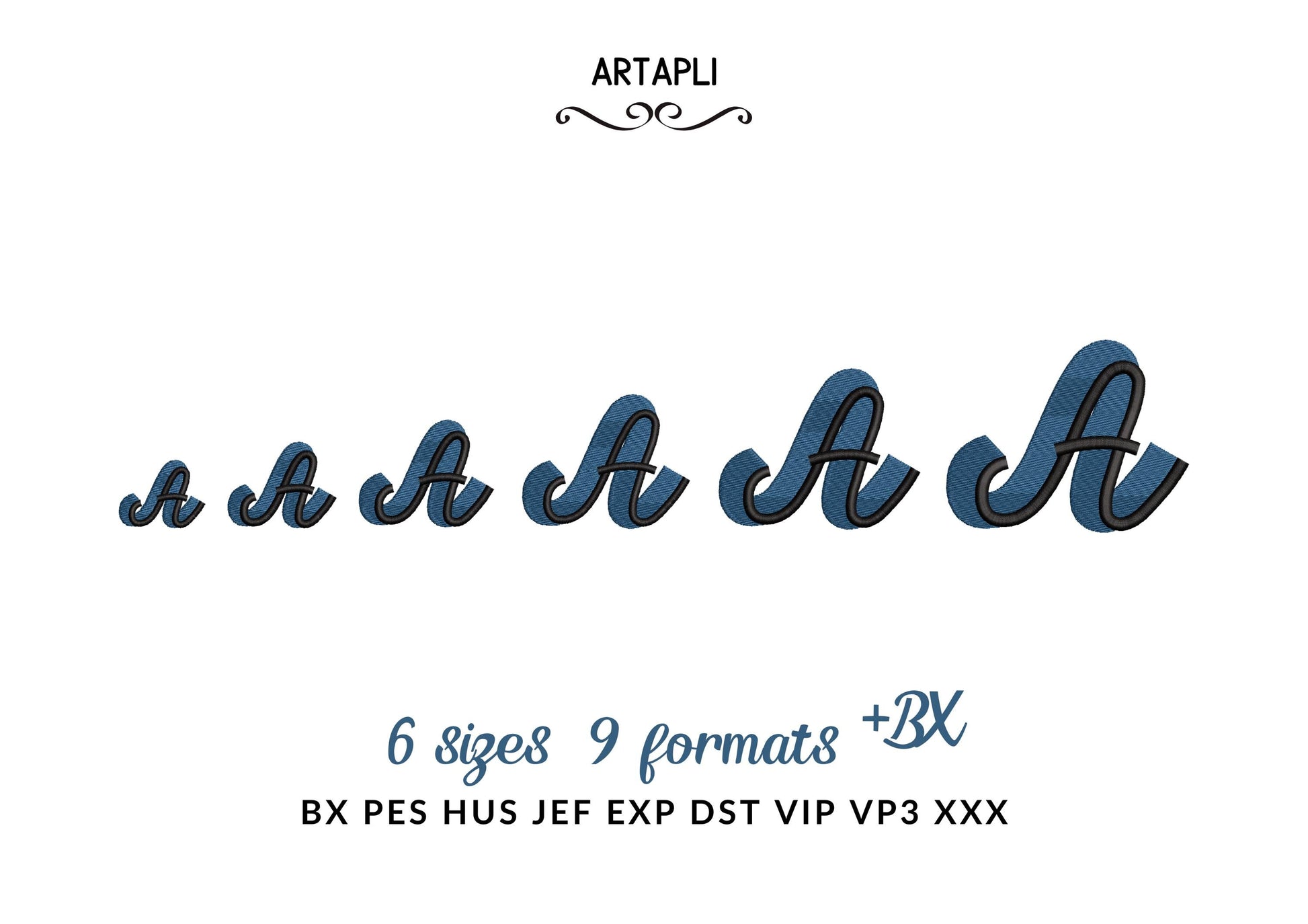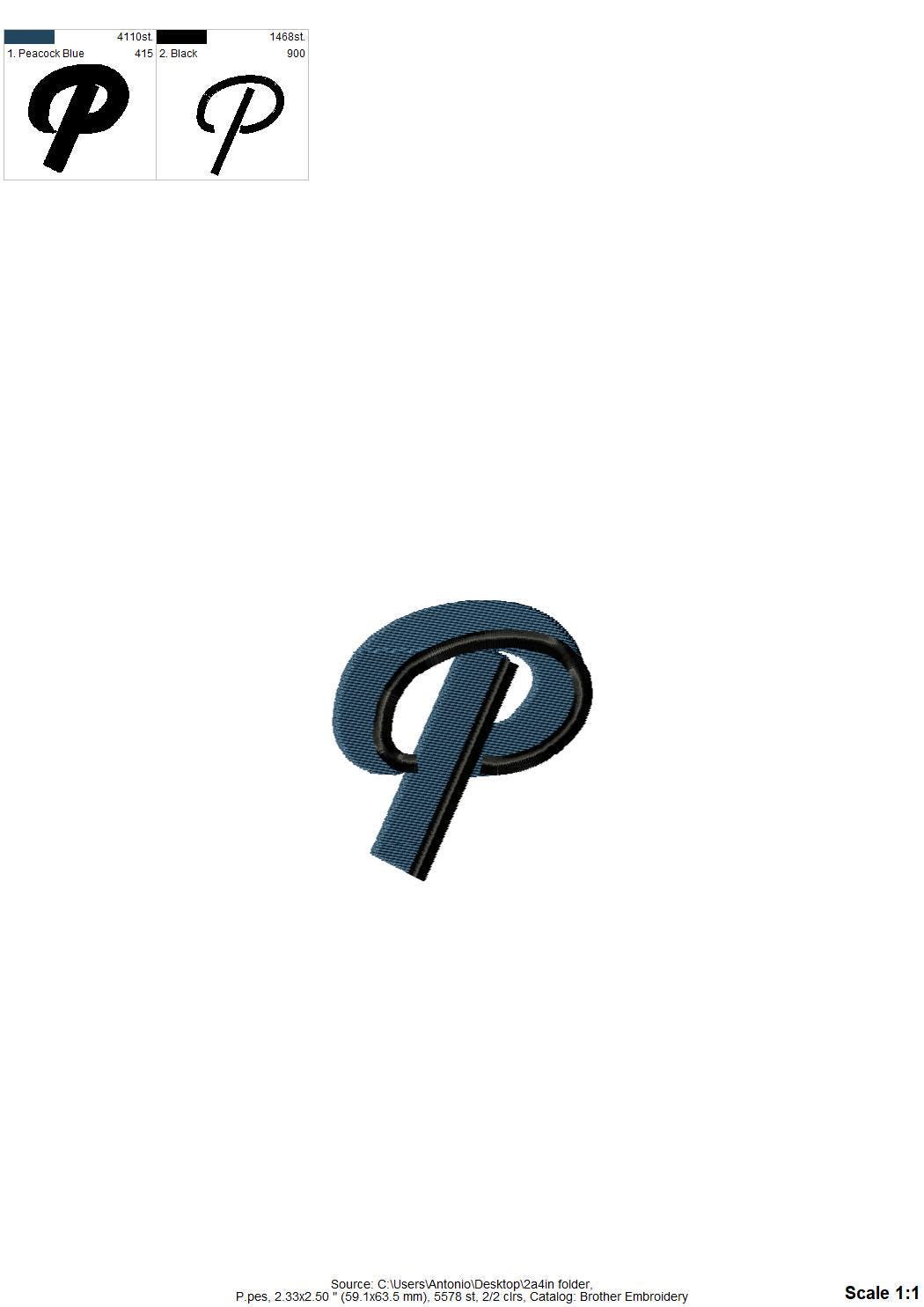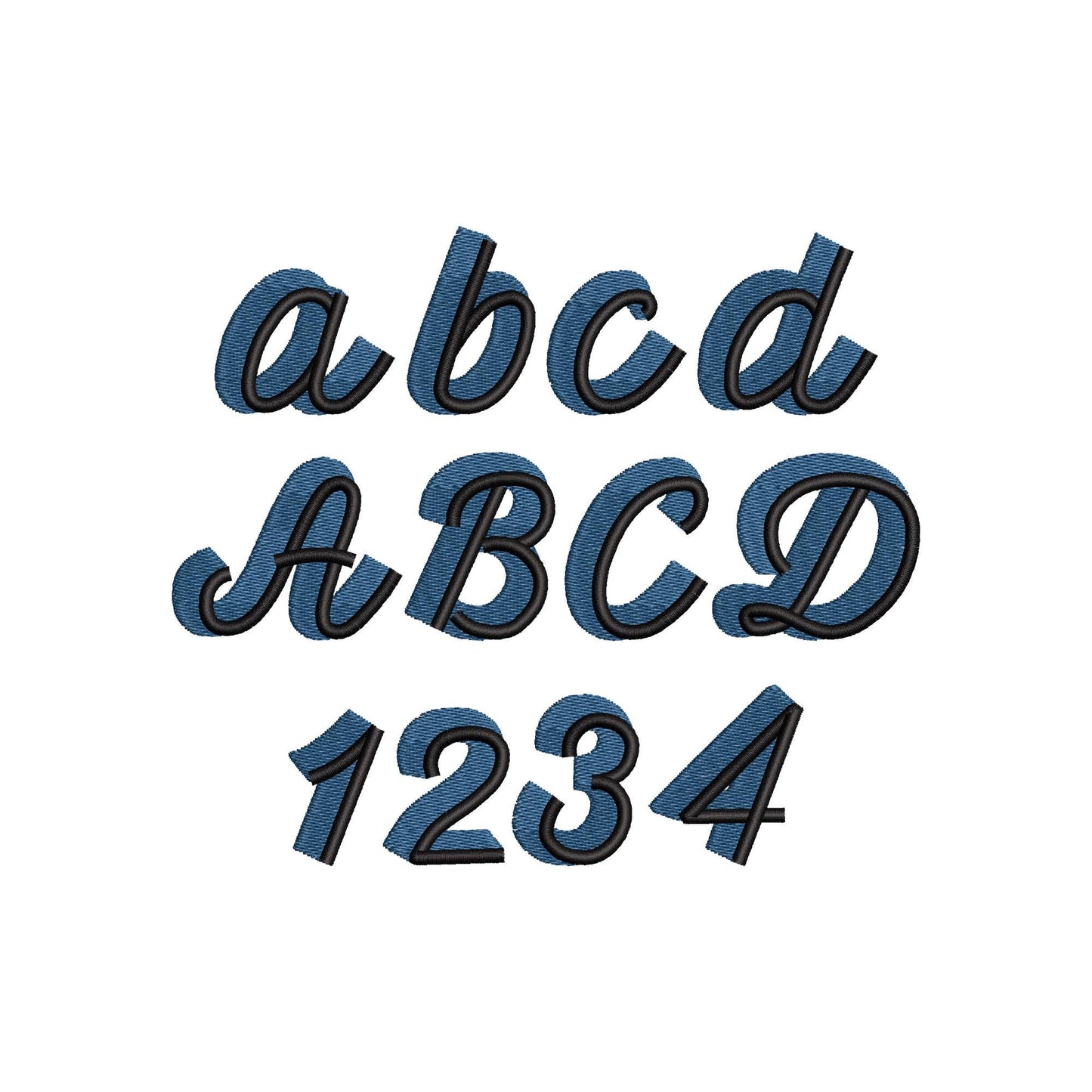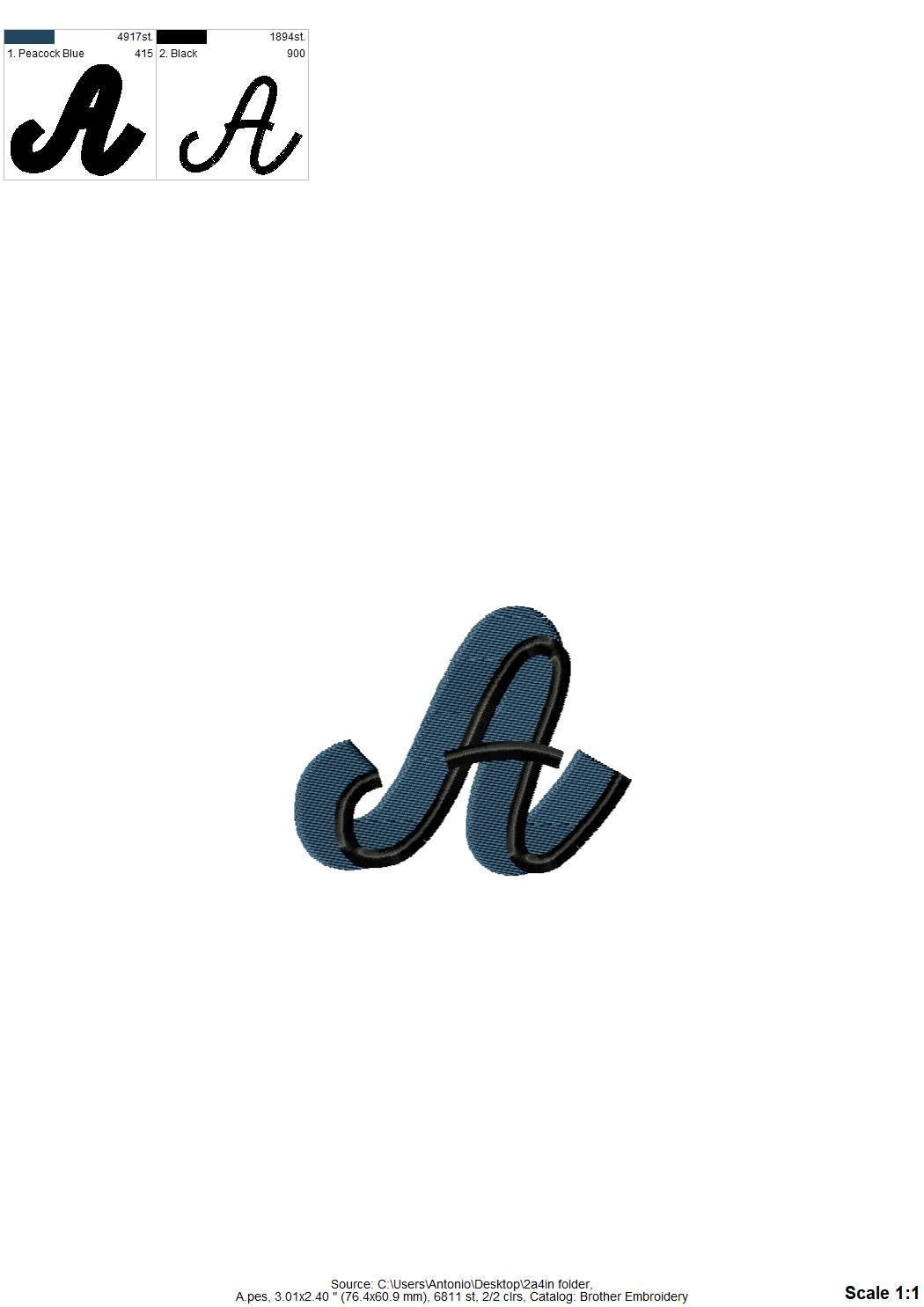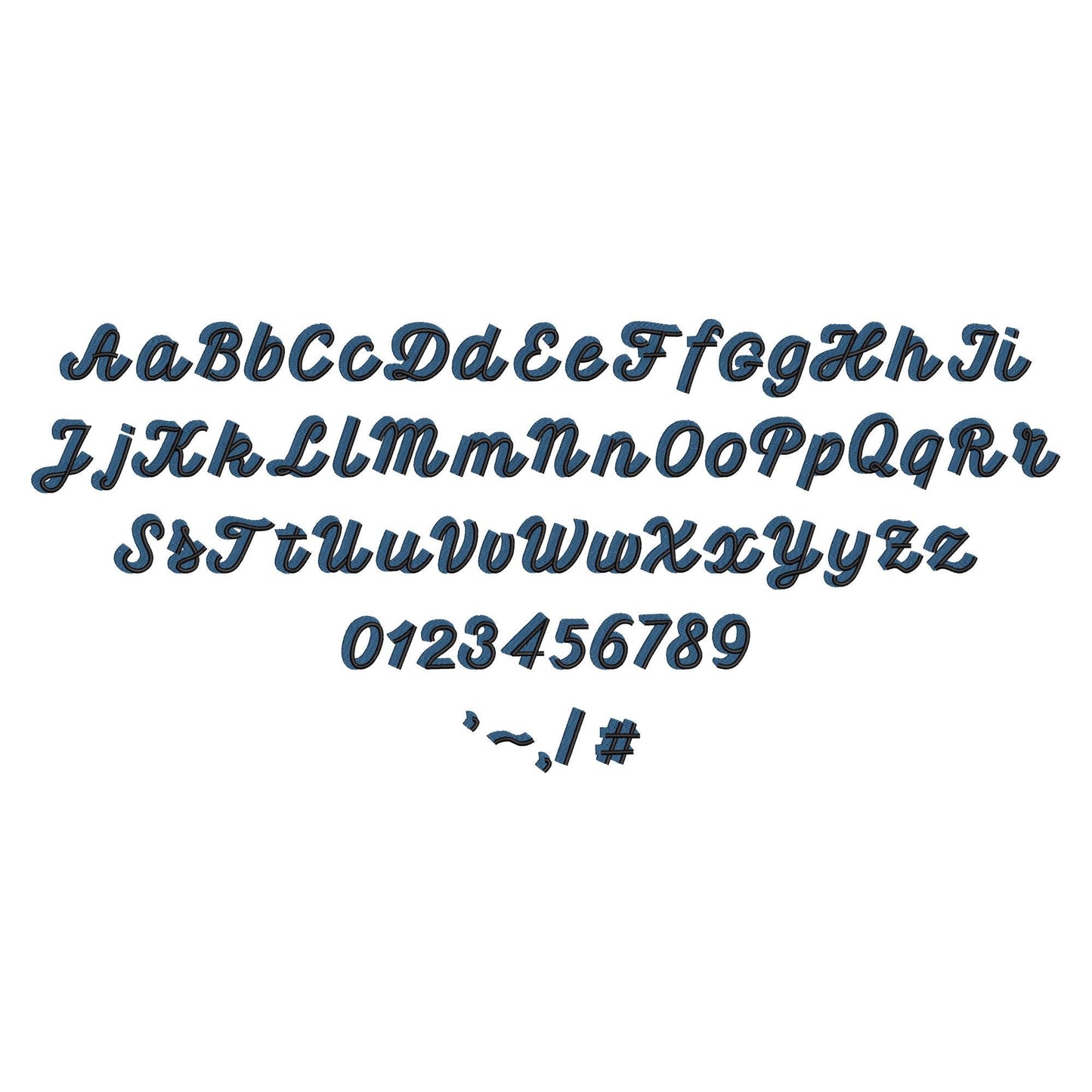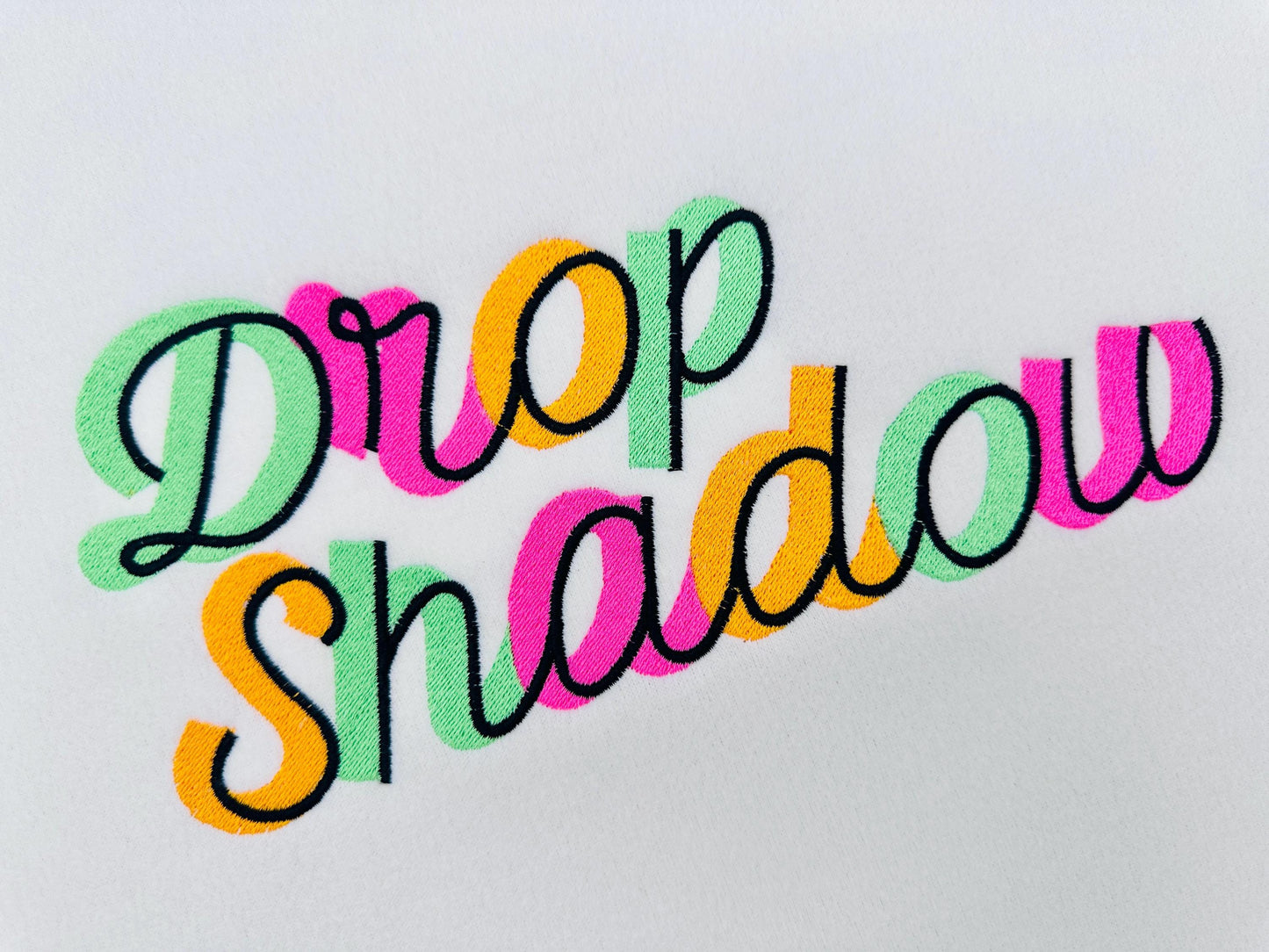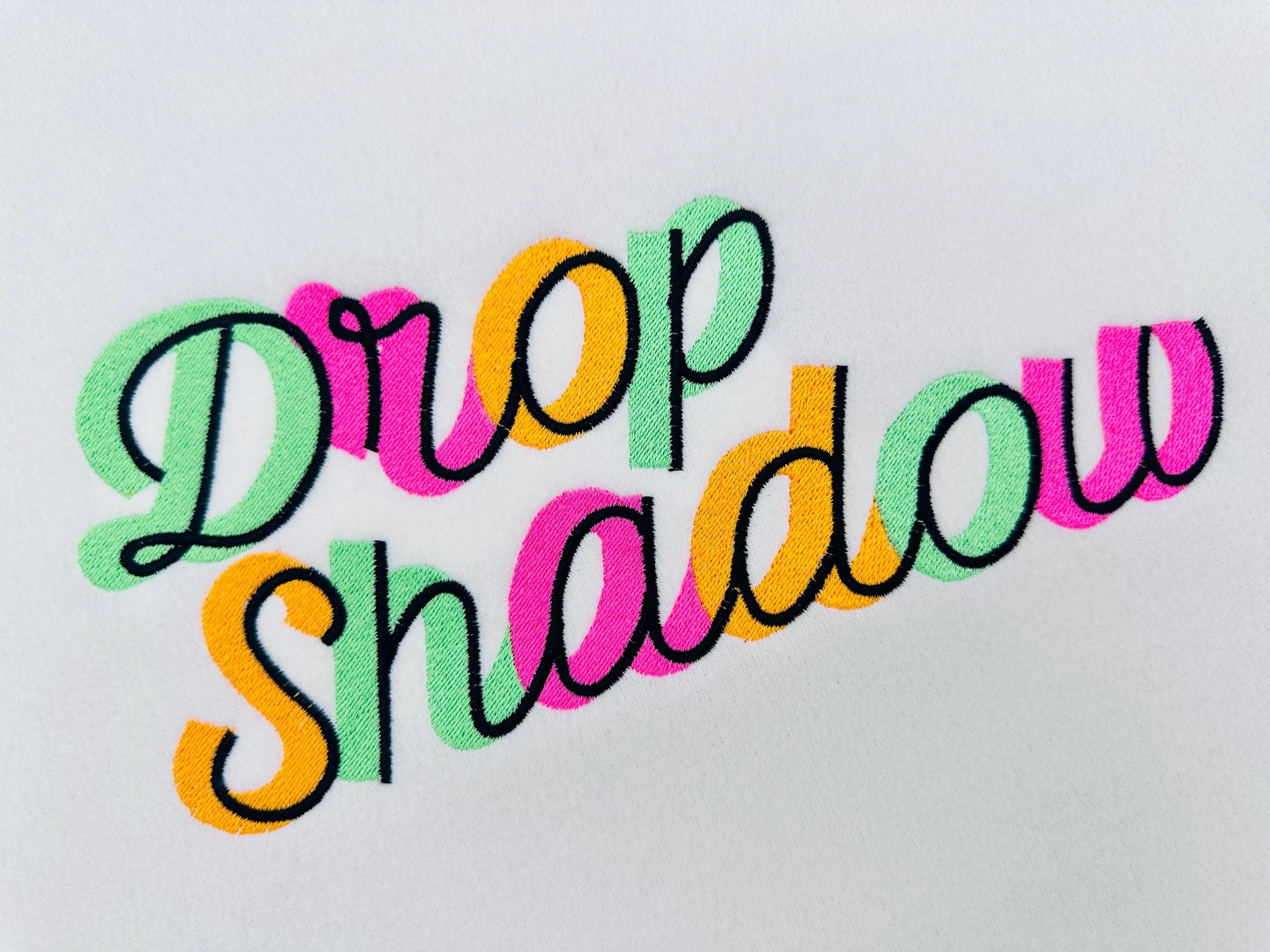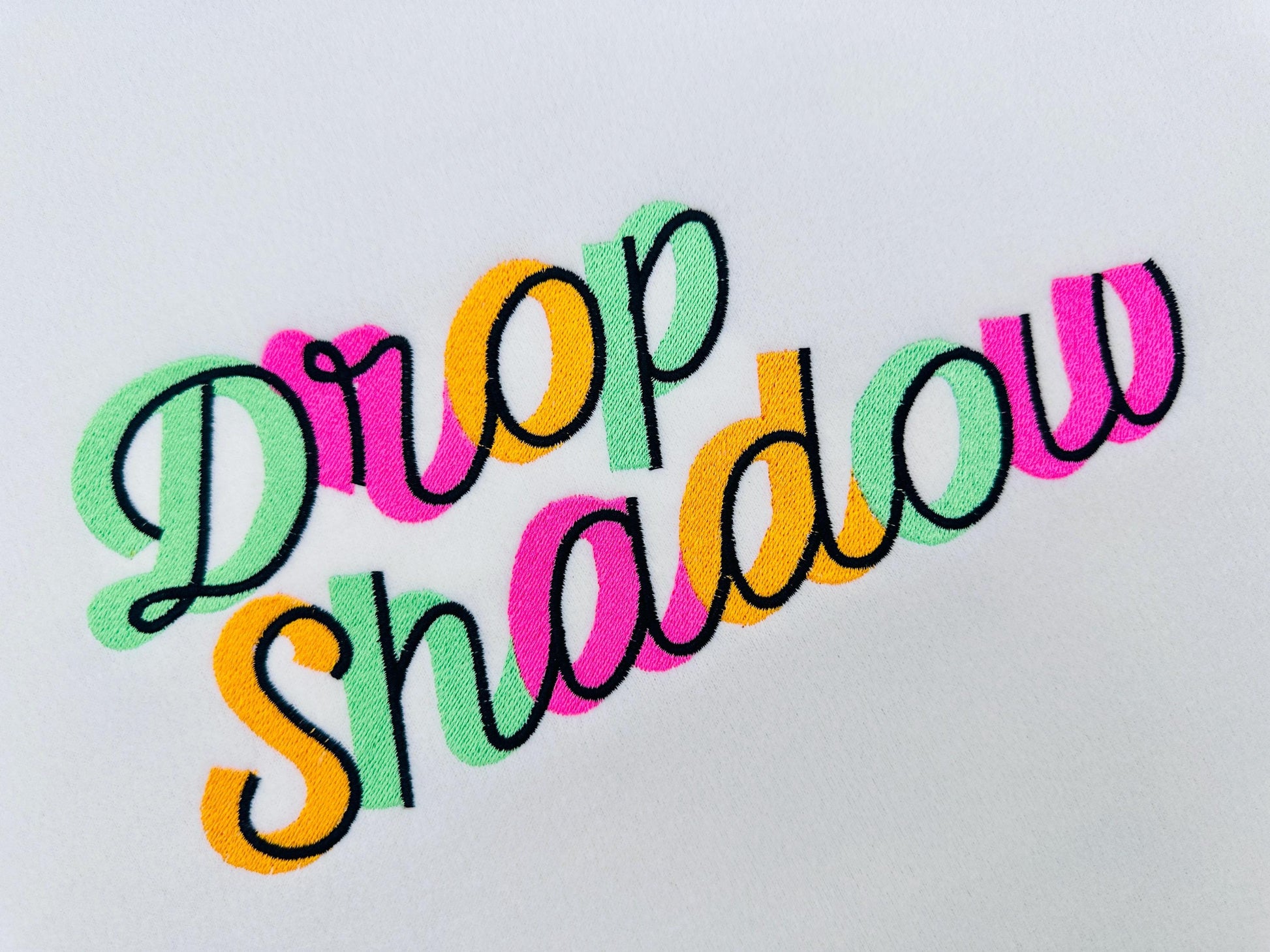
Or click to open the linkA handwritten fill stitch font with a two-color drop shadow that makes the letters pop. Great for names on shirts, bags, pillows and kids' gear.
Six sizes: 1, 1.3, 1.6, 2, 2.4 and 2.9 inches. Each letter is fill stitched with a shadow in a second color. The alphabet has uppercase and lowercase letters A-Z, numbers 0-9 and punctuation.